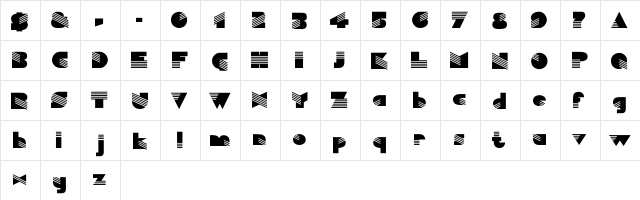
Bastion Regular
Design Context for Bastion Typeface
Bastion is a composed and adaptable typeface that performs quietly and consistently across a wide range of design contexts.